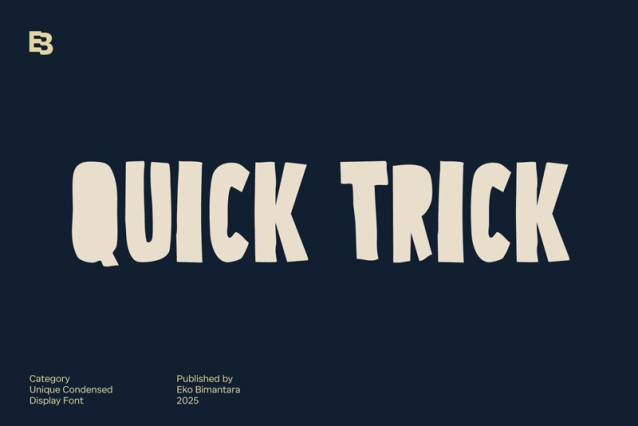
Quick Trick Font
Quick Trick Font is a chunky, comic, and cartoon display font. With its neat and joyful personality, this font will enhance any project you wish to create!